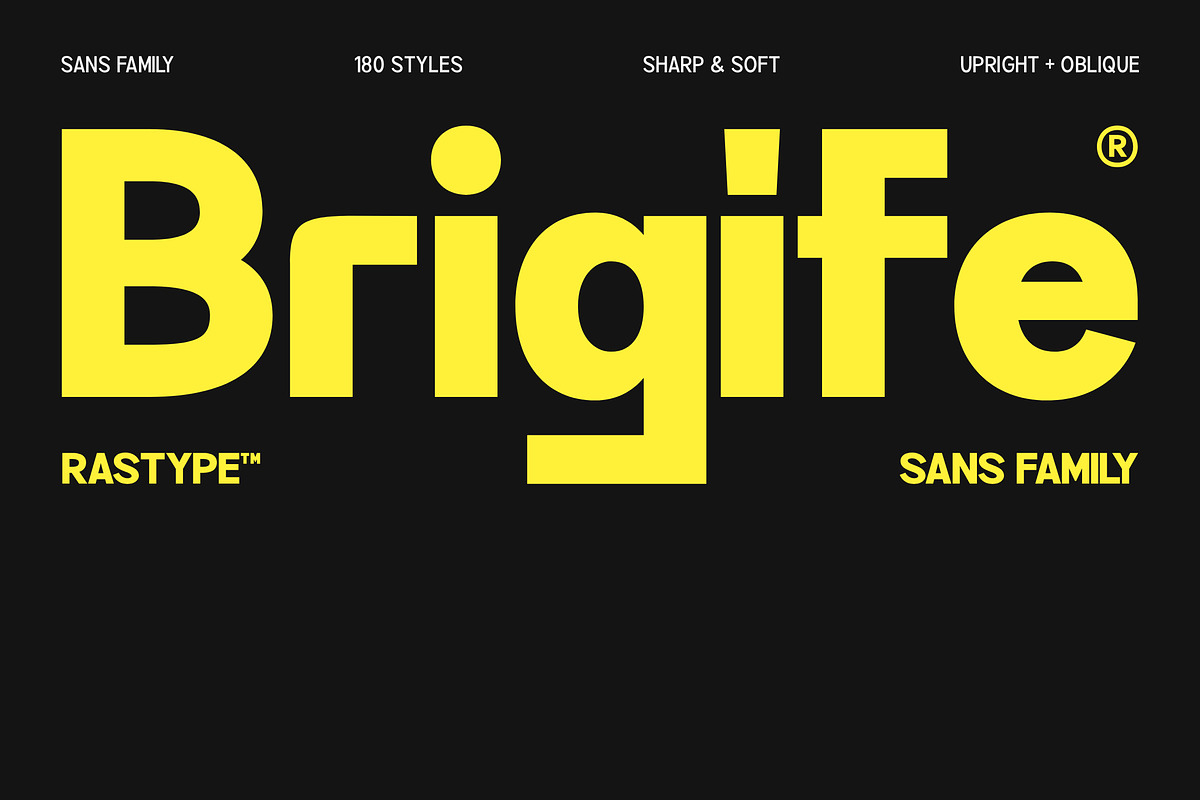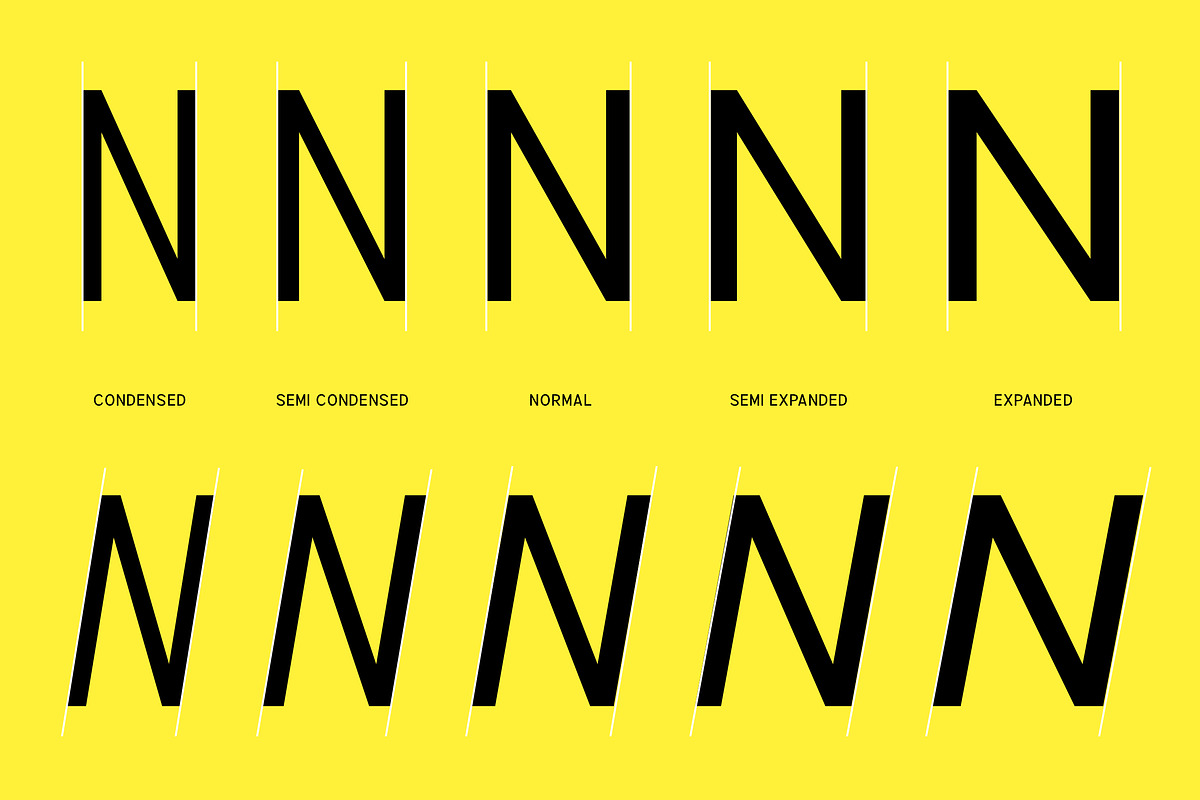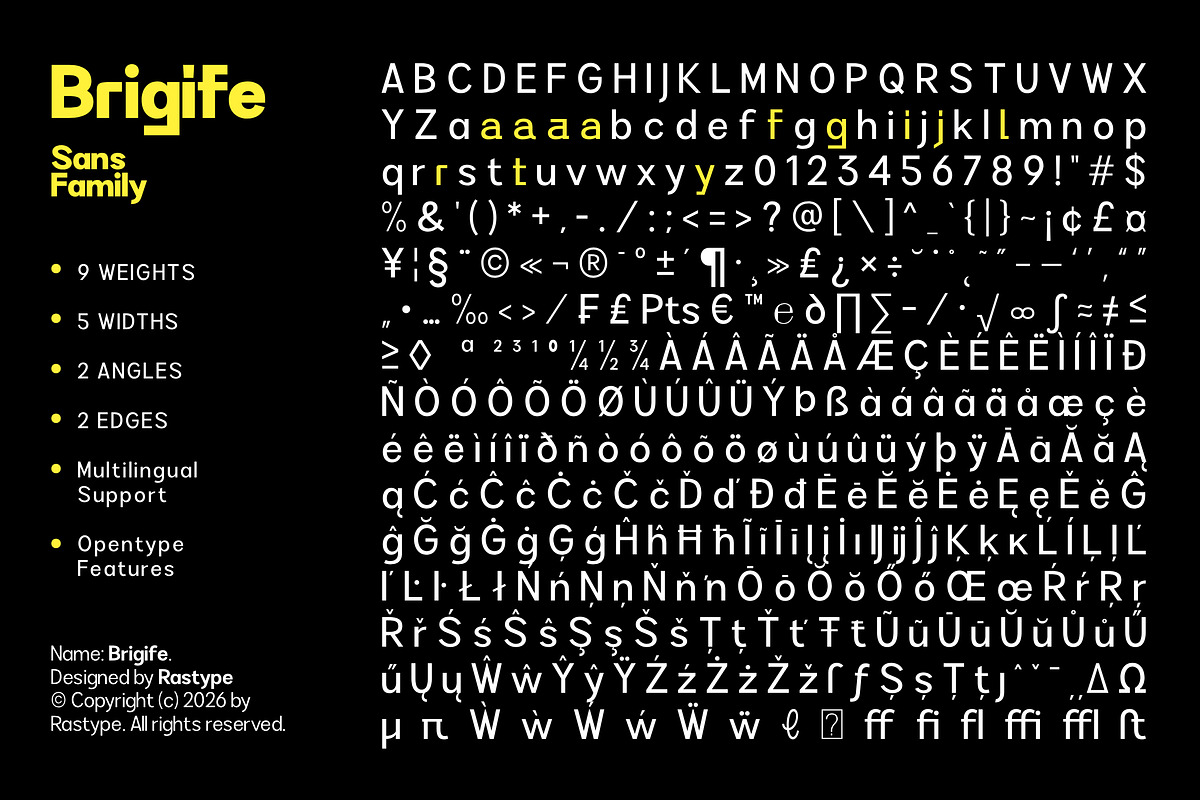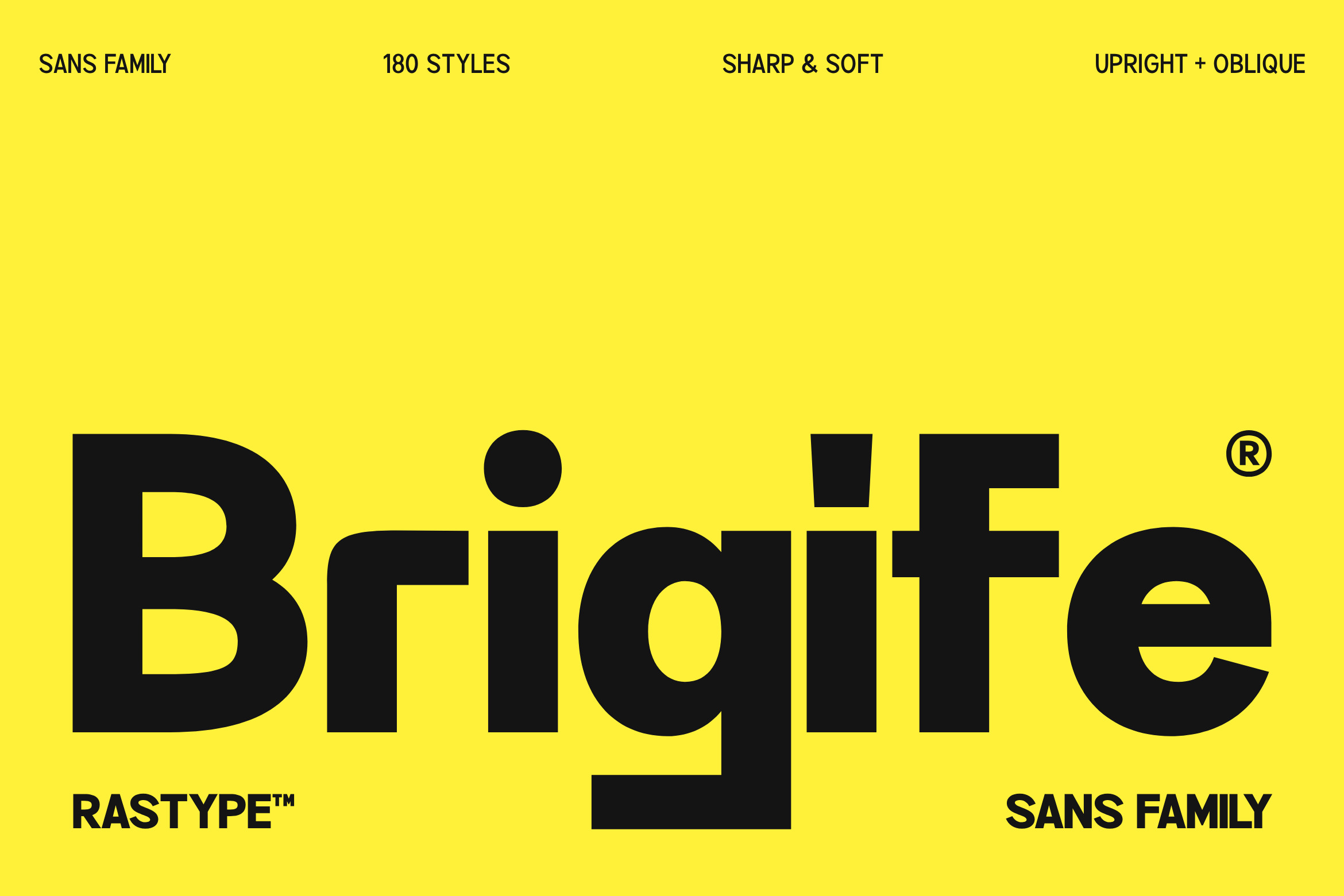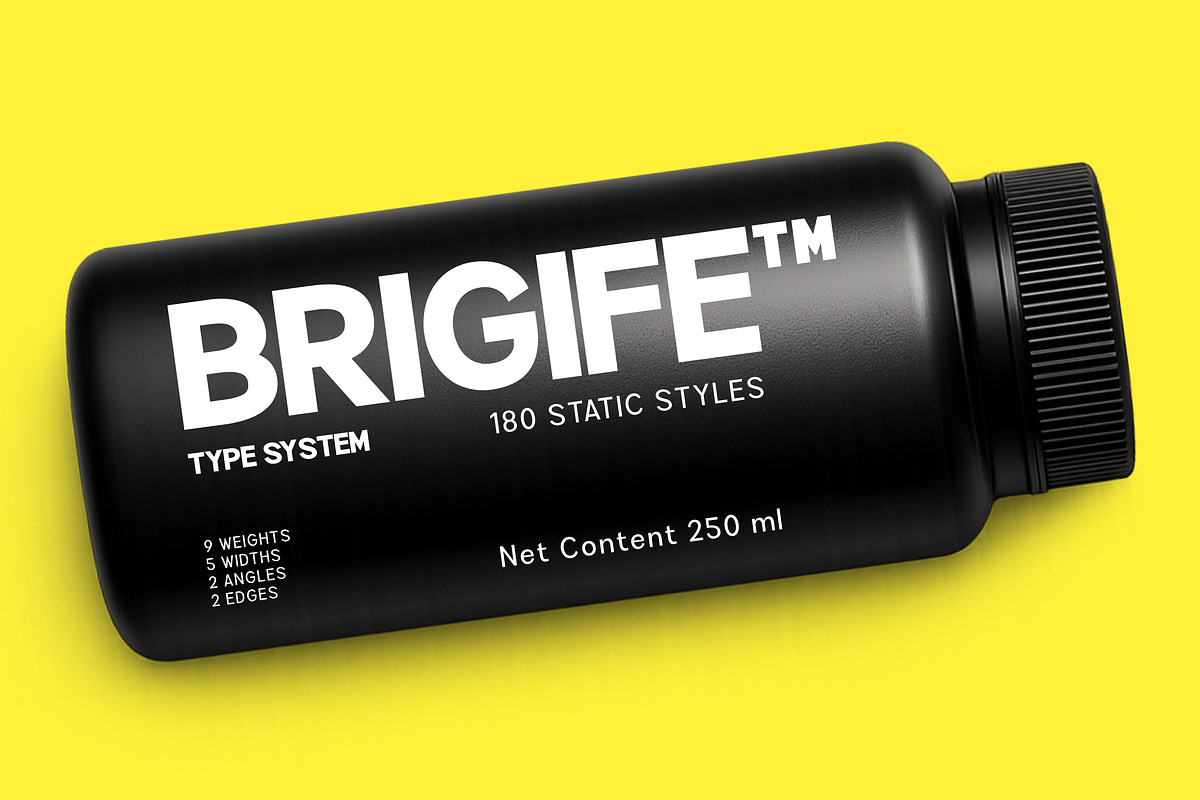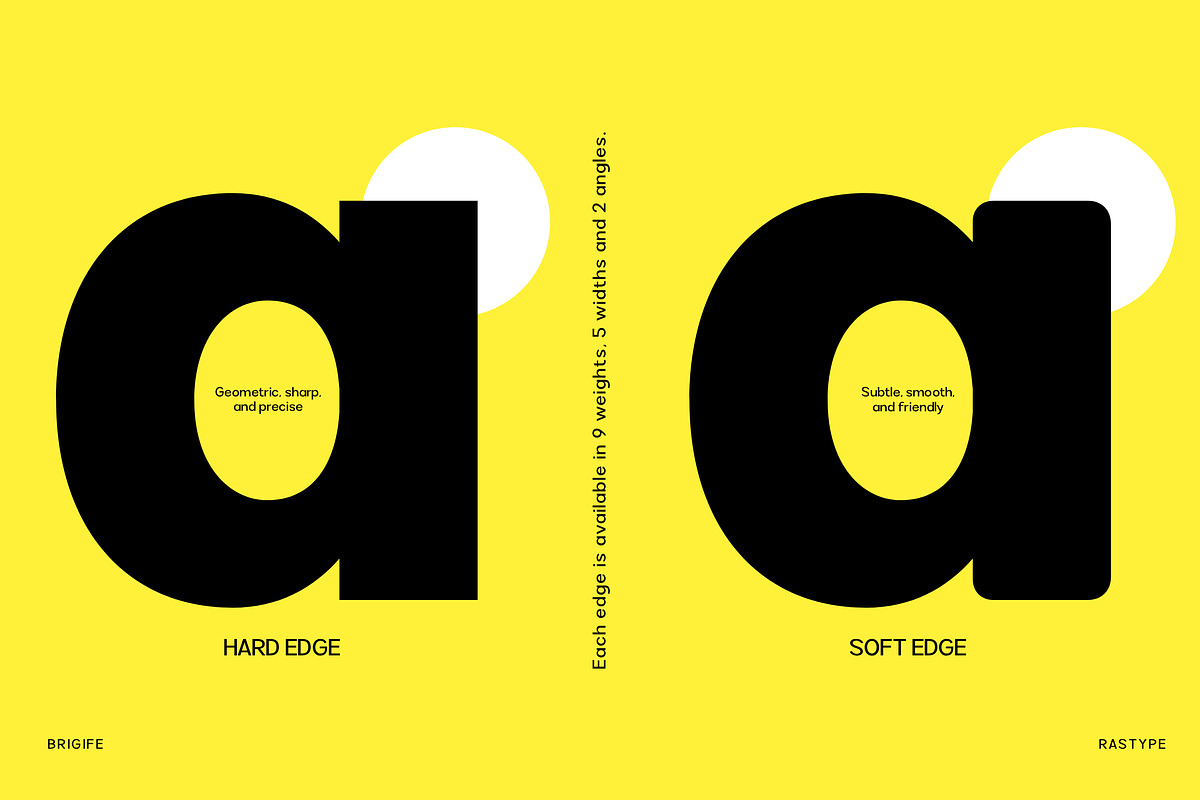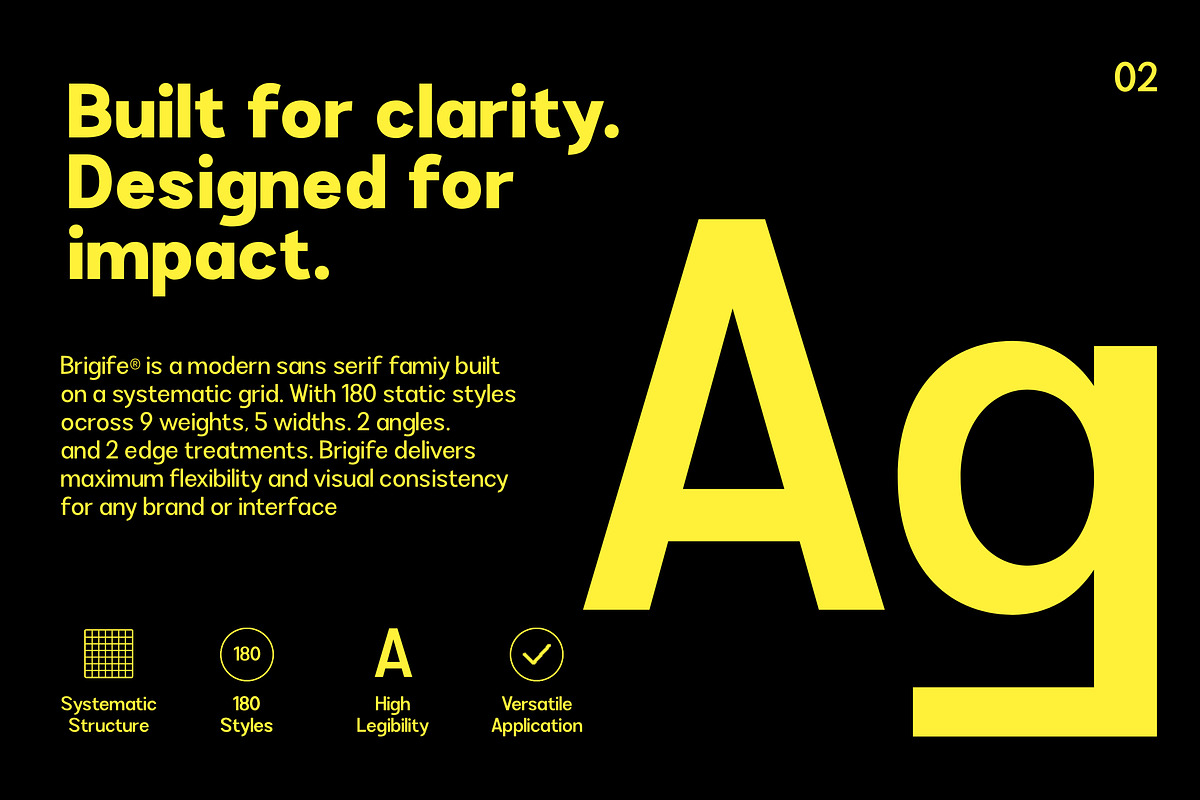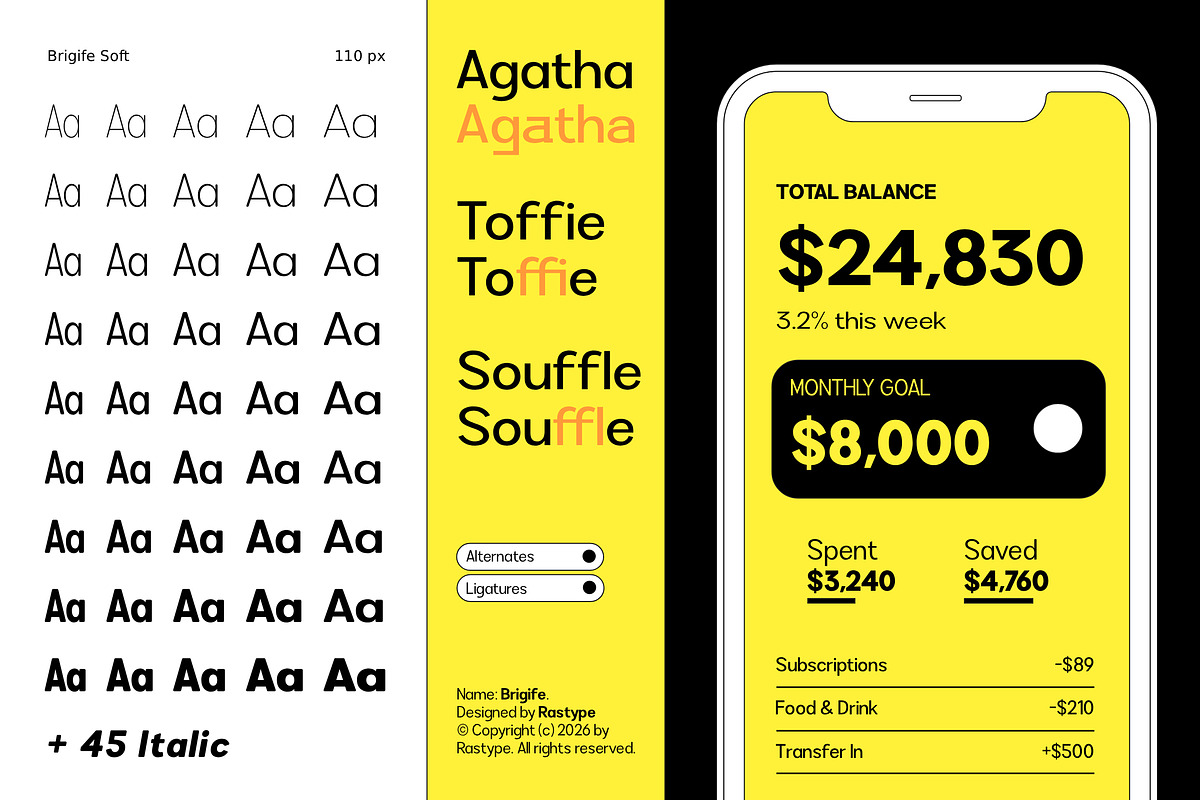
Brigife - Family Font
Brigife is a bold and contemporary sans serif typeface designed with a strong visual presence and versatile character. It balances sharp geometric edges with subtle soft curves, creating a modern yet approachable tone. With an extensive family of 180 styles, including upright and oblique variations, Brigife offers exceptional flexibility for branding, editorial, and display use. Its clean structure and confident weight make it ideal for impactful headlines, logos, and modern visual identities.